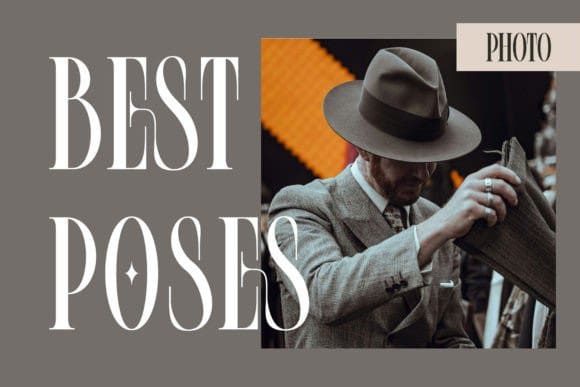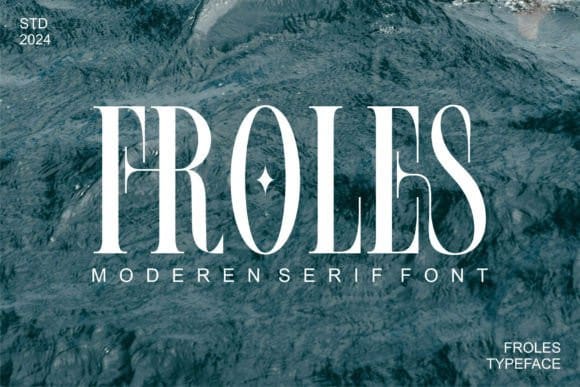
Froles Font
Froles Font – Modern Serif Typeface inspired by the famous minimalist logo perfect for the purposes of designing templates, brochures, videos, advertising branding, logos, invitations, layout design, elegant crafting, beauty design, and others.